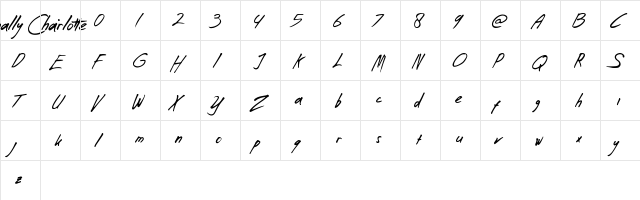
Svengally Charlotte Regular
Regular ·  Wahyu Prasetiyo ·
DesignerWahyu Prasetiyo
Design Context for Svengally Charlotte Typeface
Svengally Charlotte is a composed and adaptable typeface that performs quietly and consistently across a wide range of design contexts.